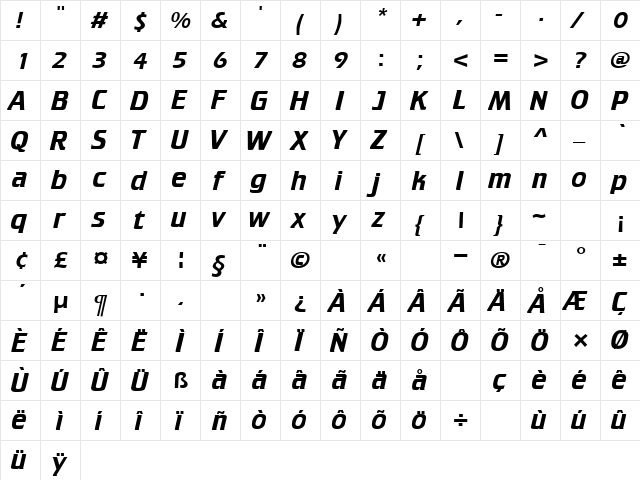
Cruiser Regular
Design Context for Cruiser Typeface
Cruiser offers clean, dependable letterforms without strong stylistic allegiance, making it a practical choice for designers who need flexibility.